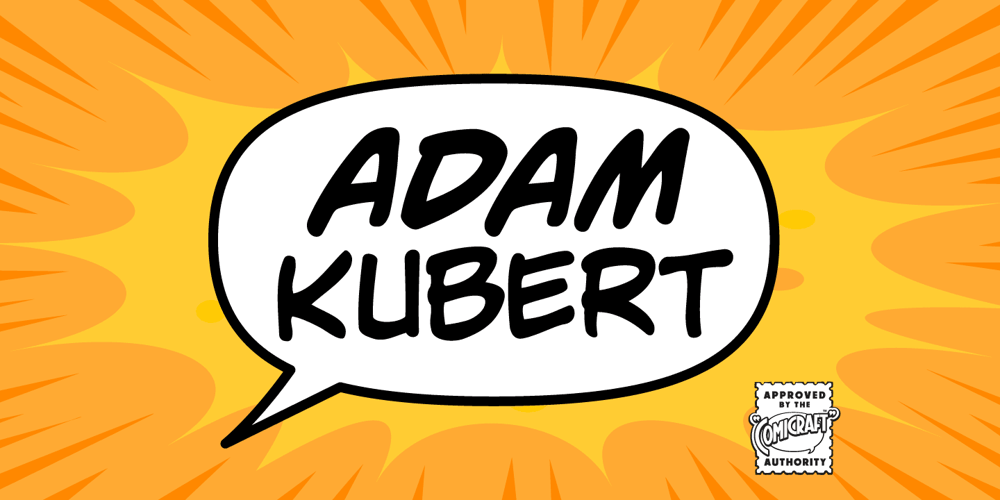
Adam Kubert
Adam Kubert font
Adam Kubert Font Family was designed by John Roshell and published by Comicraft. Adam Kubert contains 4 styles and family package options. Joe Kubert’s son Adam has a story or two to tell as well; the AdamKubert font, based on Adam’s own pen lettering in BATMAN/PREDATOR, was created by Comicraft for Marvel’s ULTIMATE X-MEN series.Comicraft fonts are created BY comic book letterers FOR lettering comic books. Accept no substitutes!